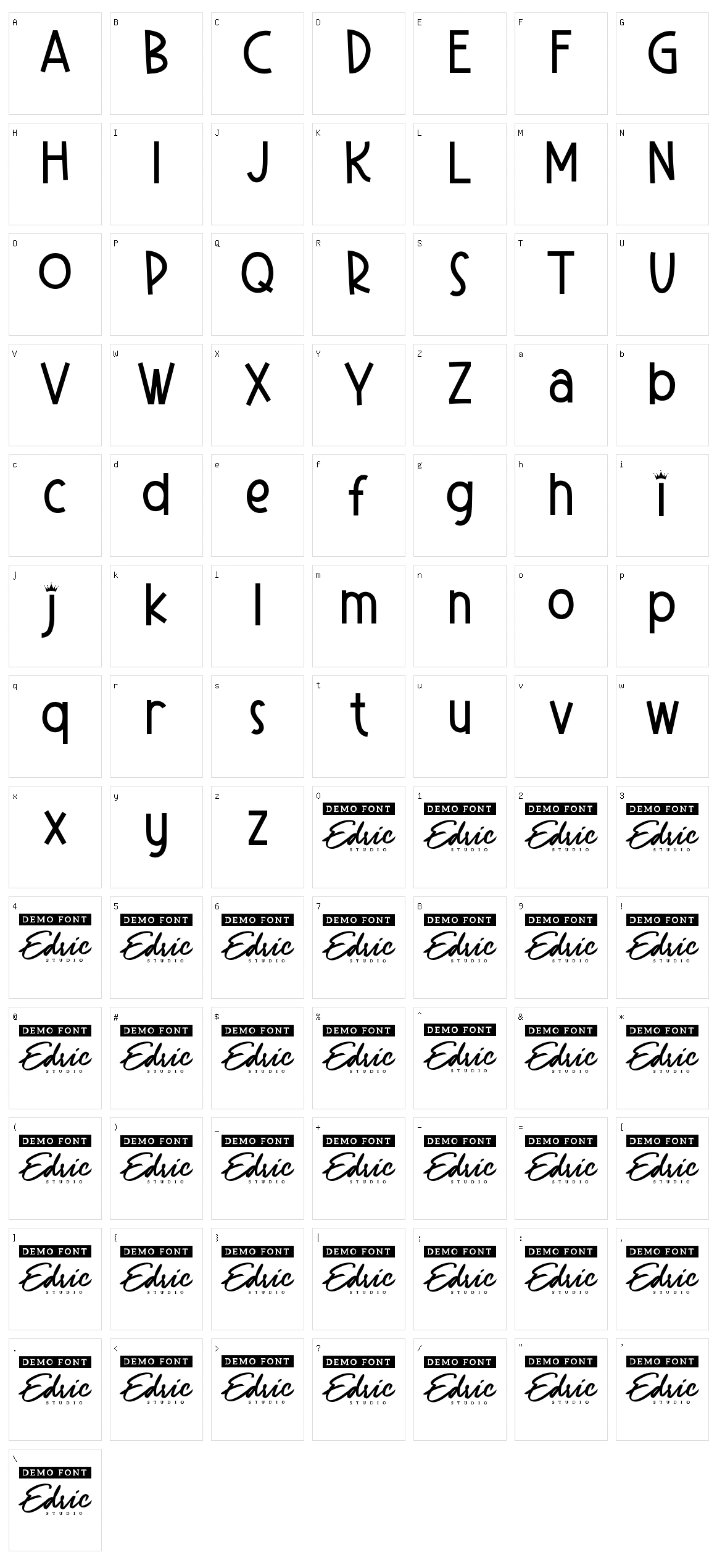
The free font Clock Crown is carefully designed by Edric Studio, showcasing a thoughtful balance of creativity and usability and falls under the Cartoon font style. When you download the ZIP file, it contains only 110.59 KB of font files, making it lightweight and quick to download. Please review the license details below to understand permitted usage and distribution rights. If license information is not available, we recommend using this font for personal projects only or contacting the author directly for commercial usage permissions.